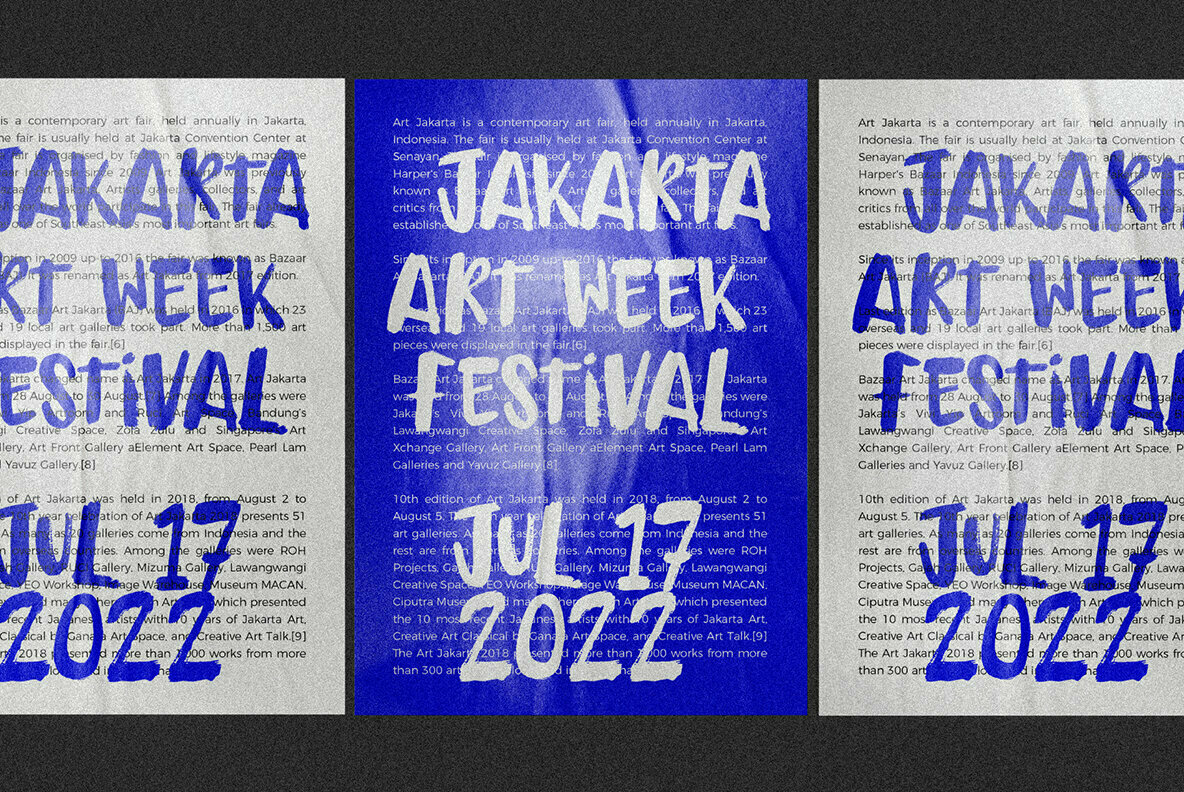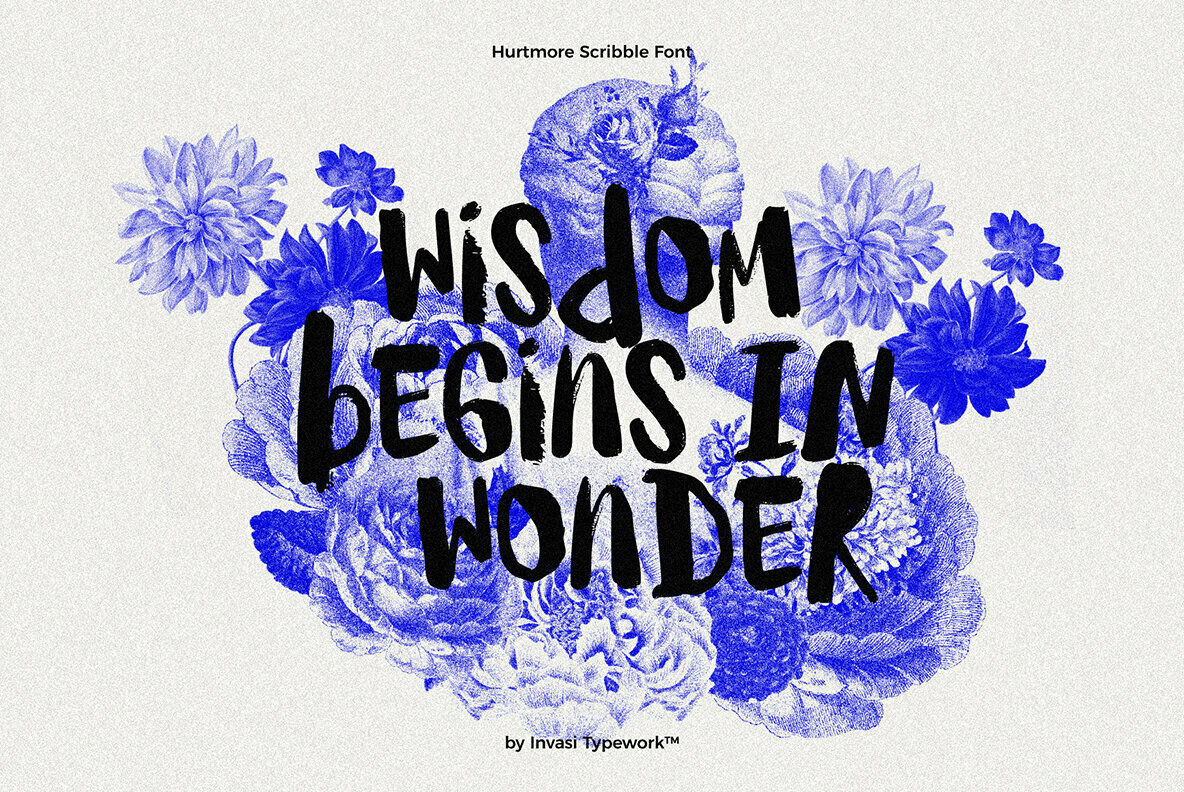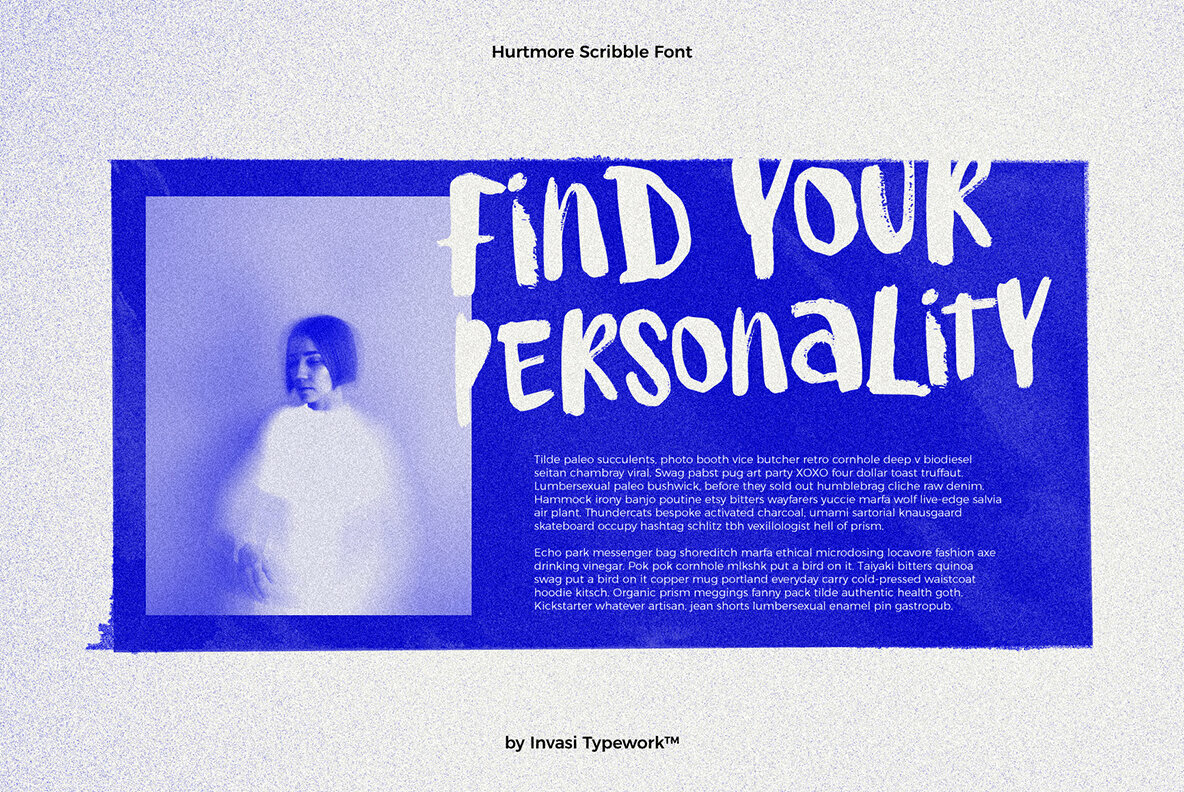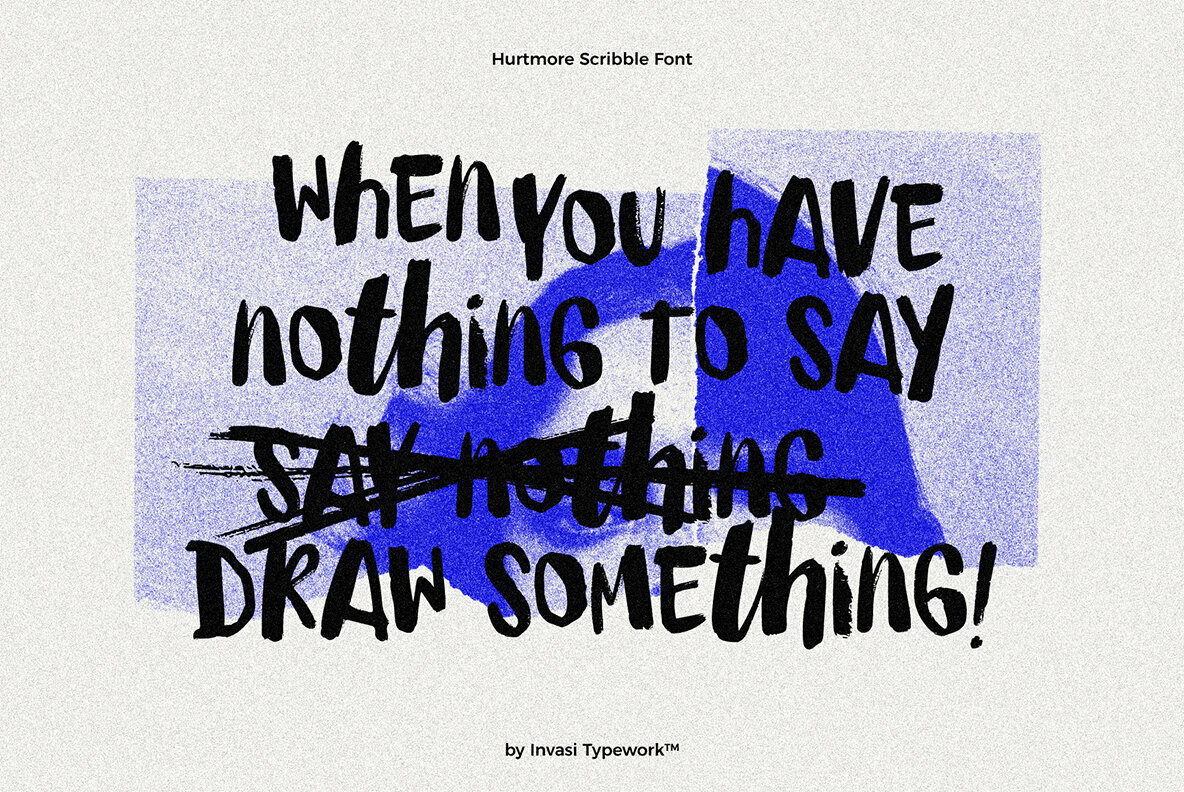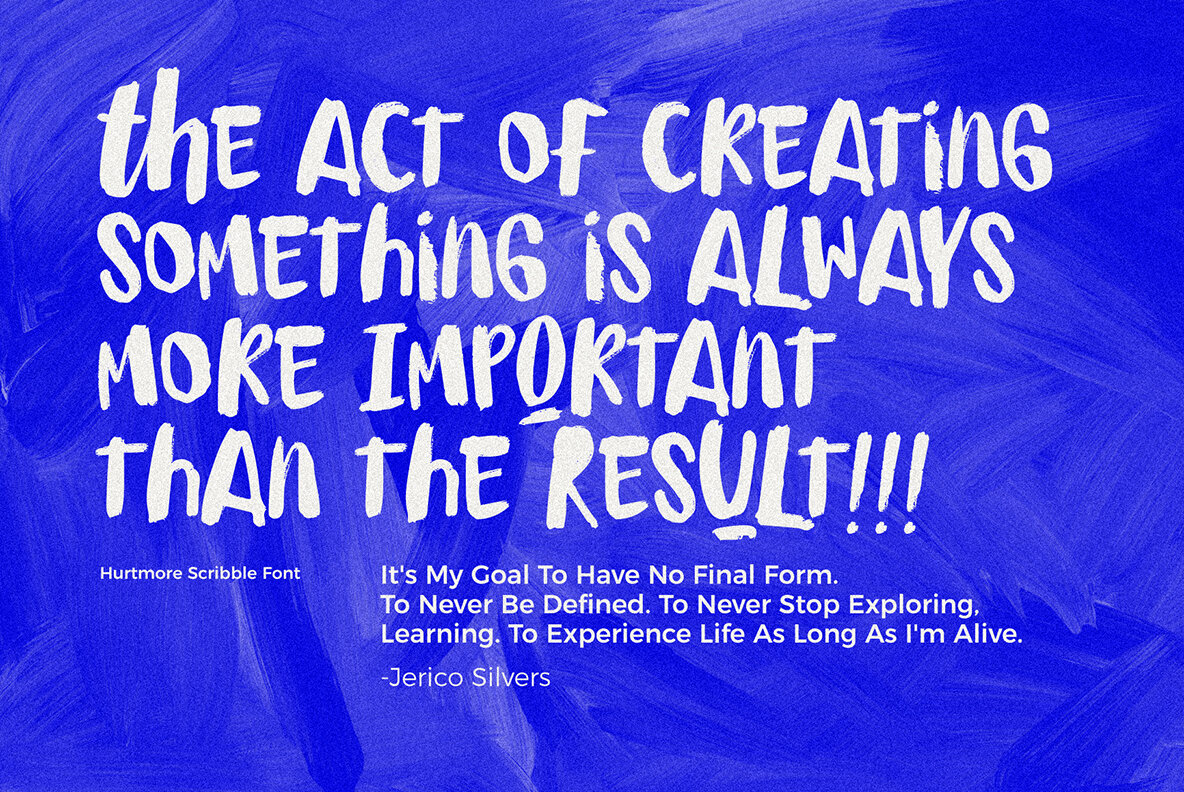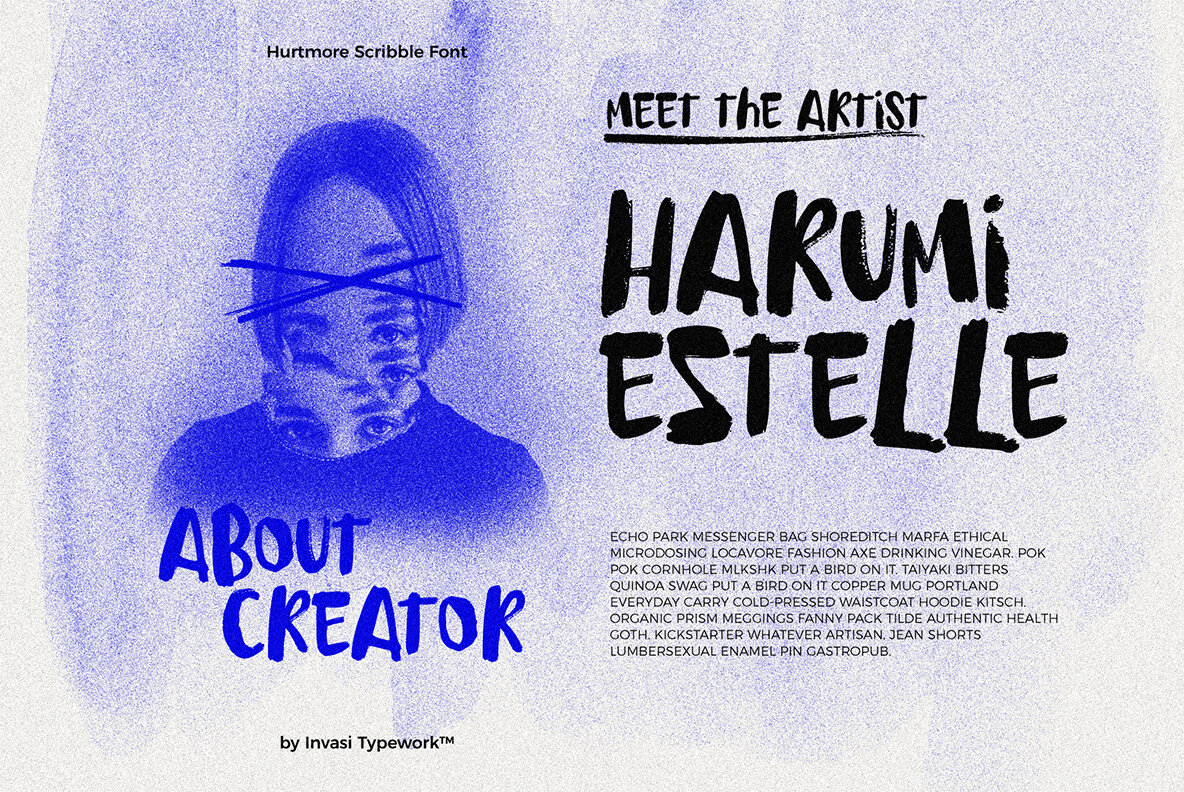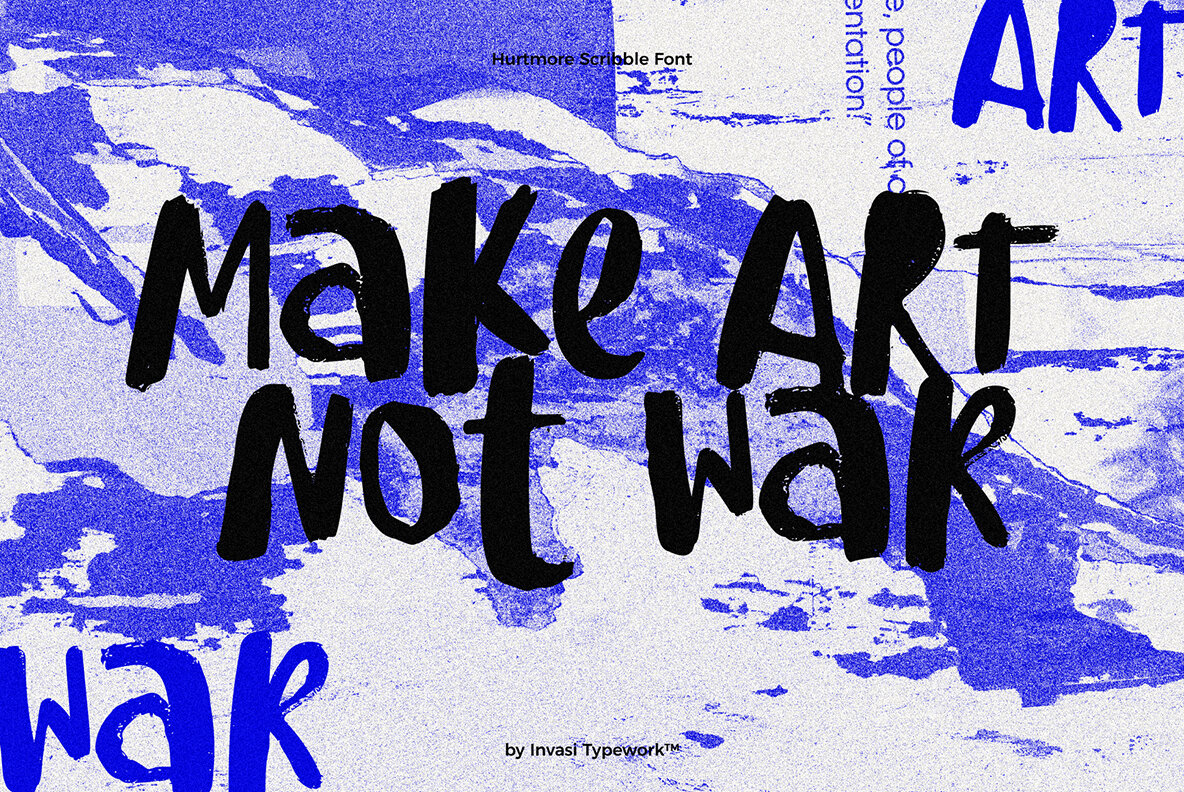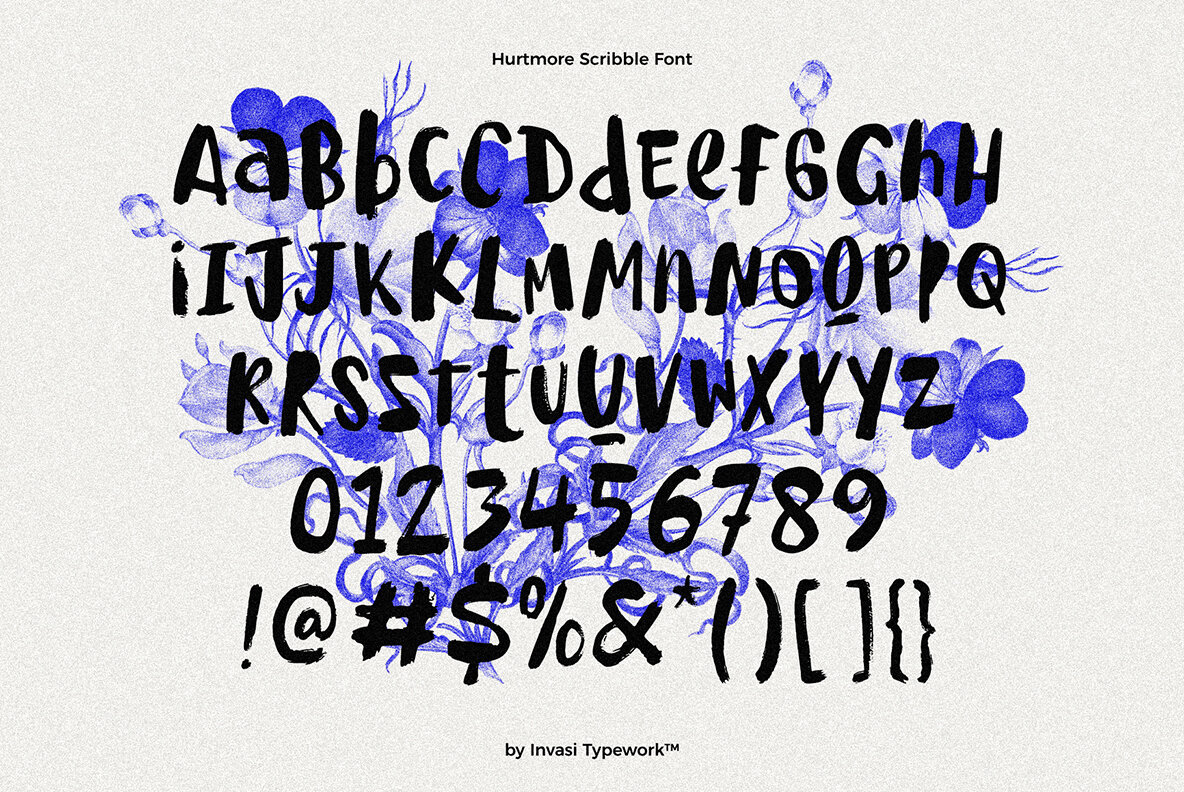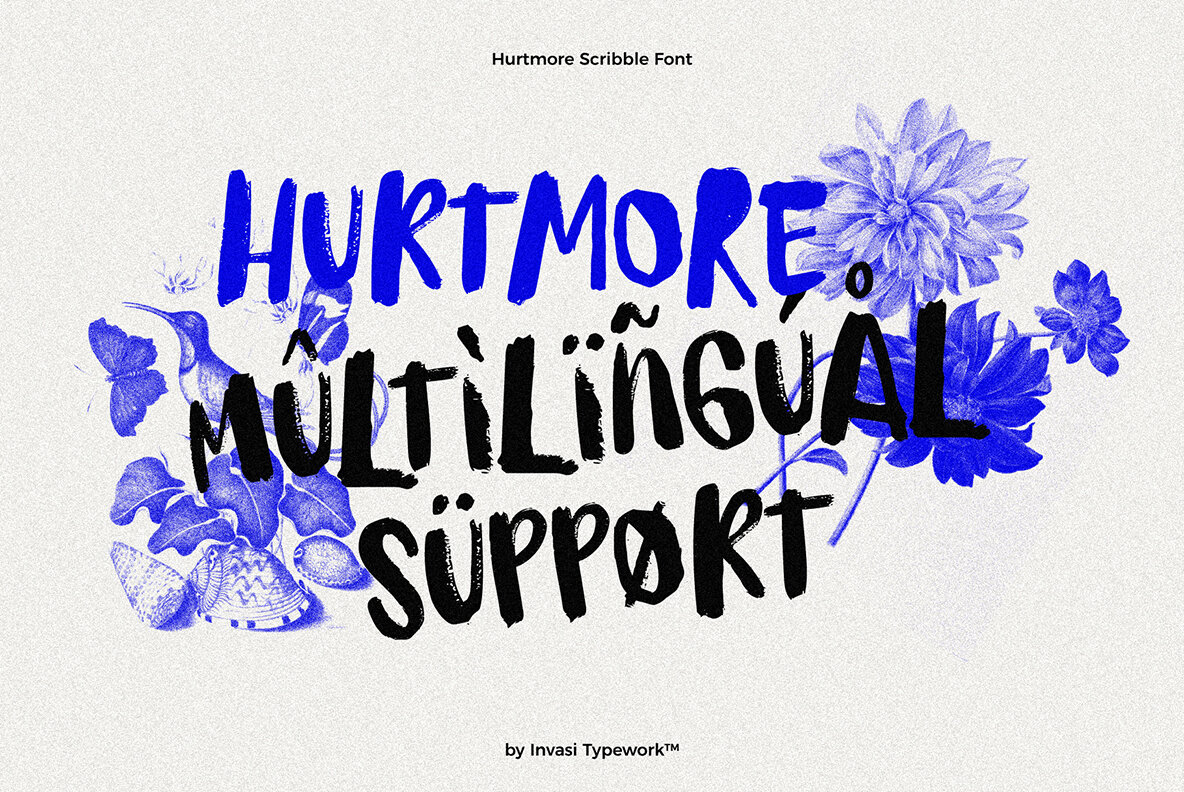
Hurtmore Font
Hurtmore Regular
Have you ever wanted to make your visuals more powerful? With the help of Hurtmore typeface, that is now possible.
The unique alternating characters will add a sense or loudness and boldness when used correctly! It's easy enough for anyone with some creativity in their designs- mix up these characters however desired because there aren't any rules when designing with Hurtmore.